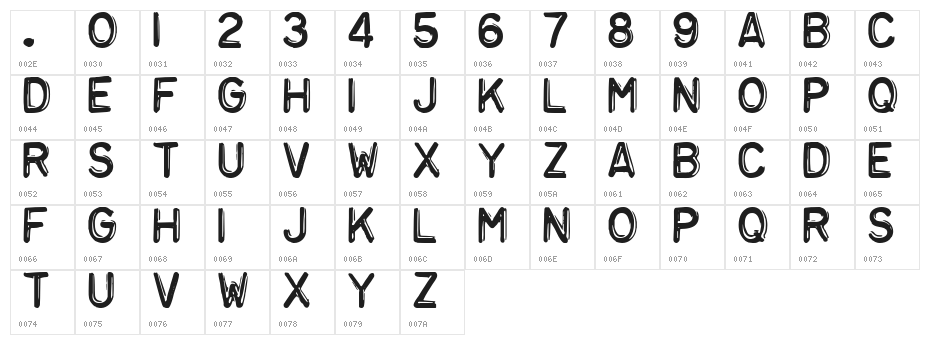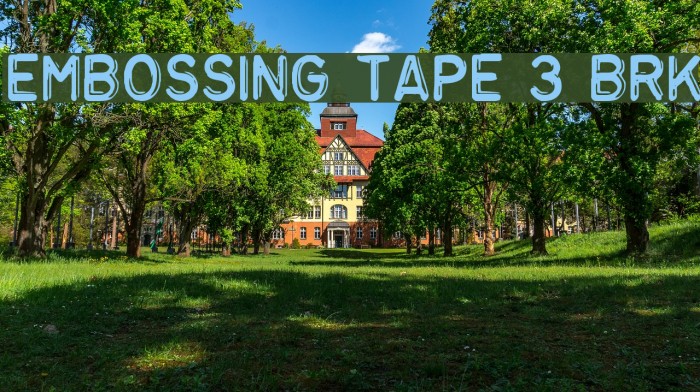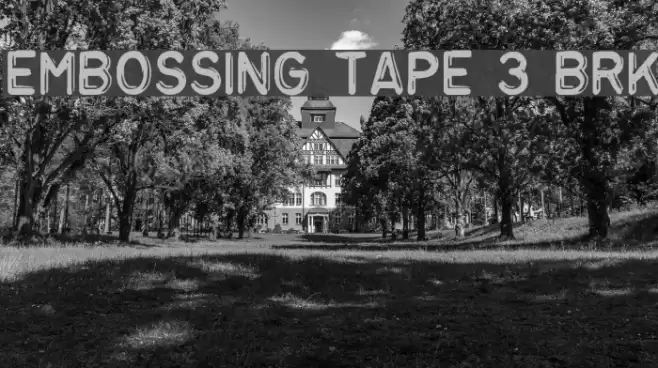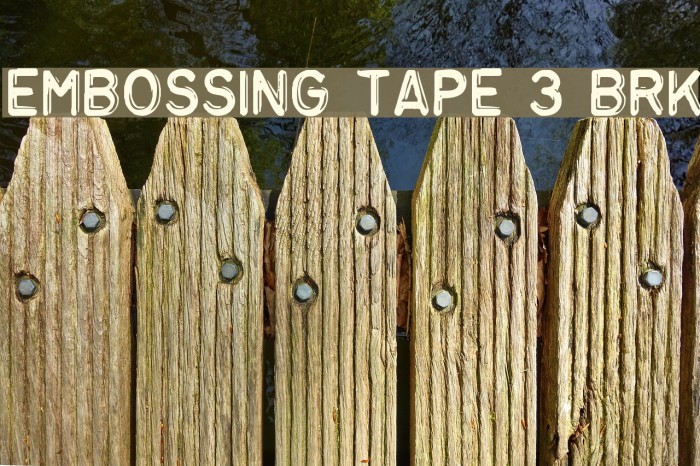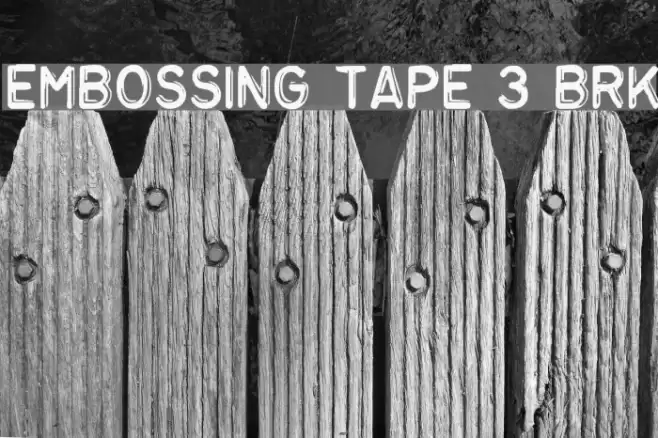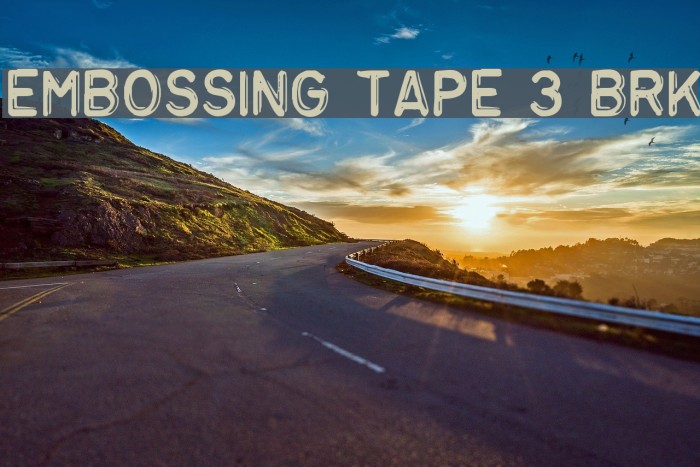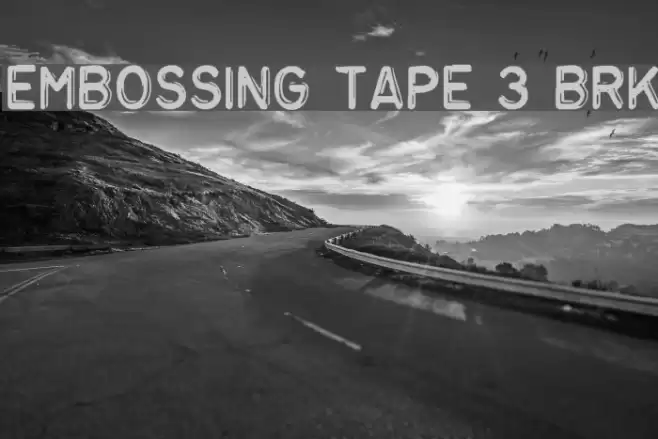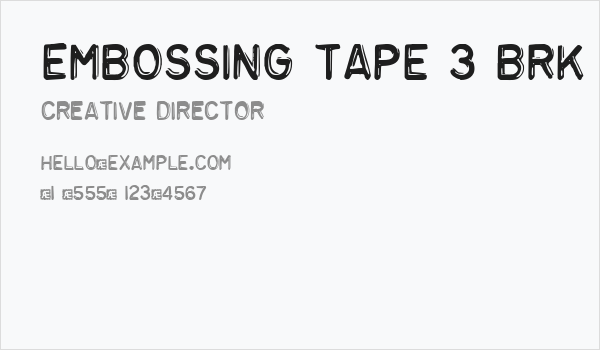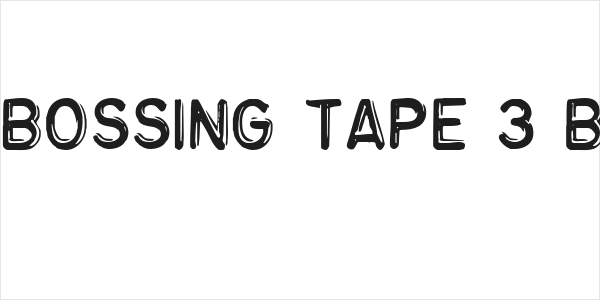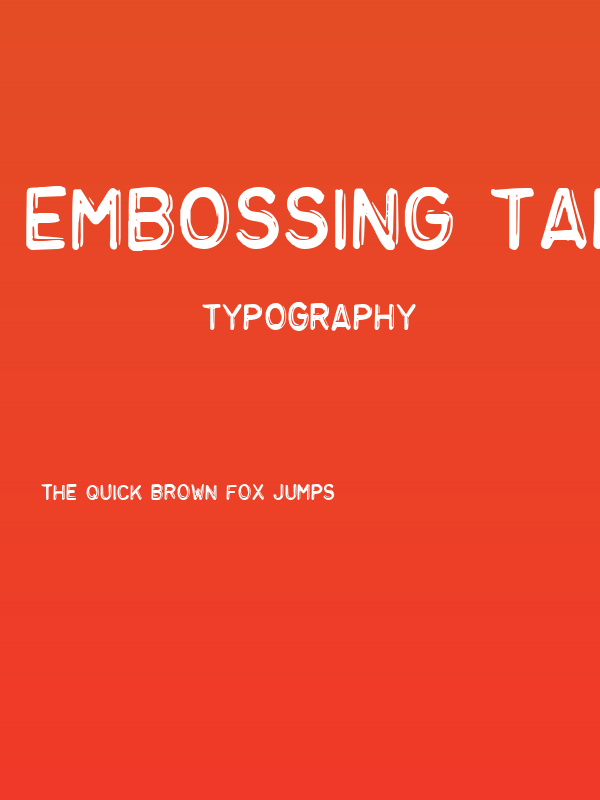
Embossing Tape 3 BRK Font
| Категория | Capitals |
| Общий стиль | Vintage |
| Рекомендуемые проекты | Ideal for vintage-themed designs, labels, posters, and branding that require a distinctive, tactile appearance. |